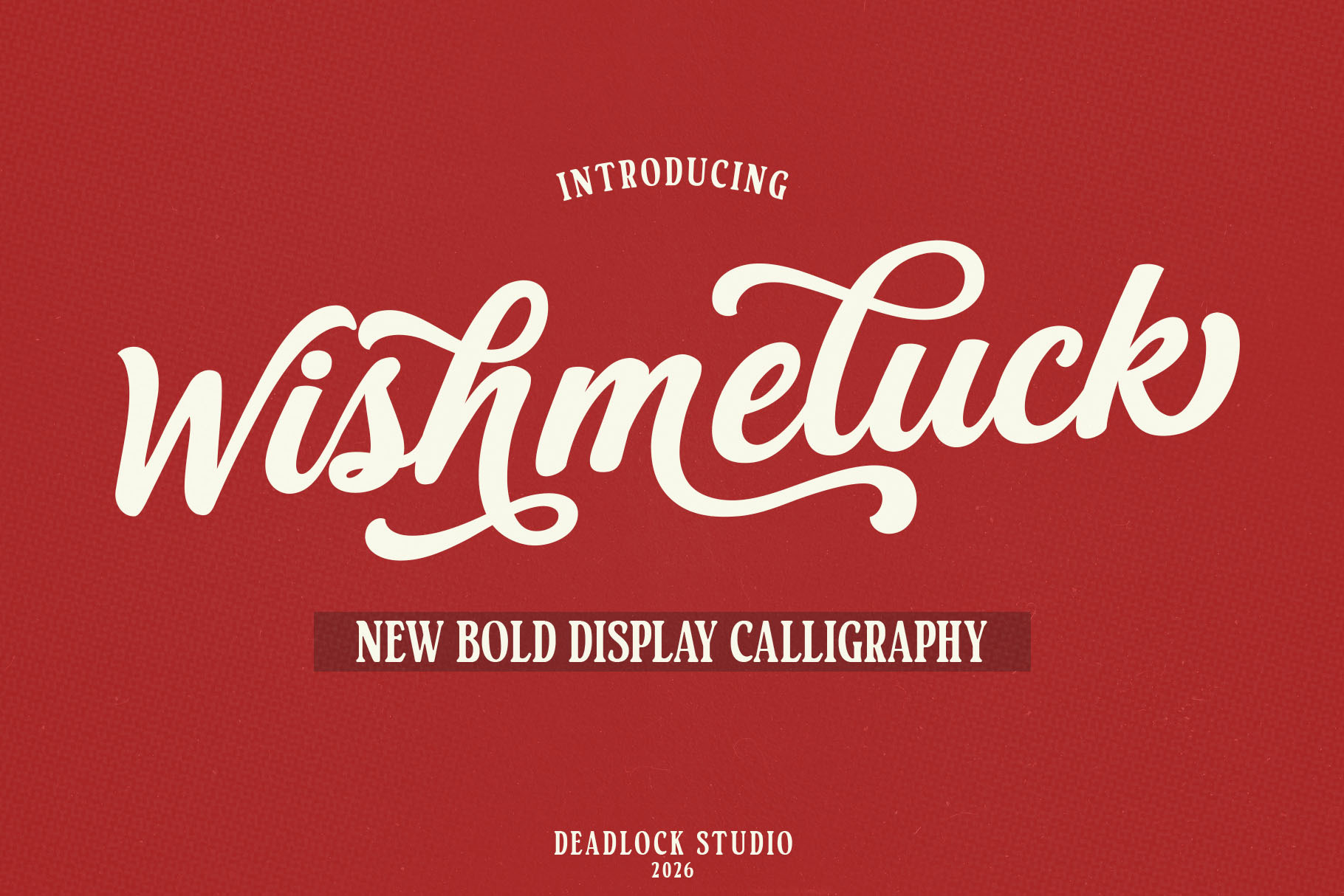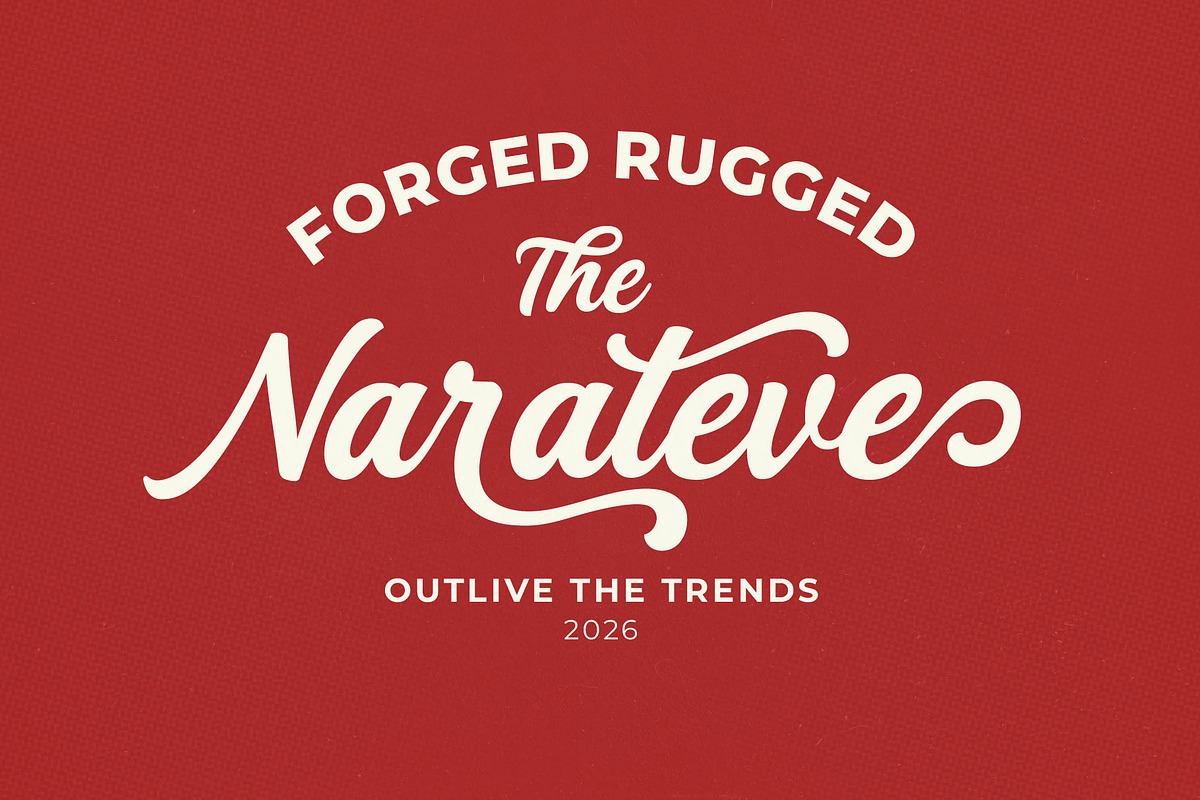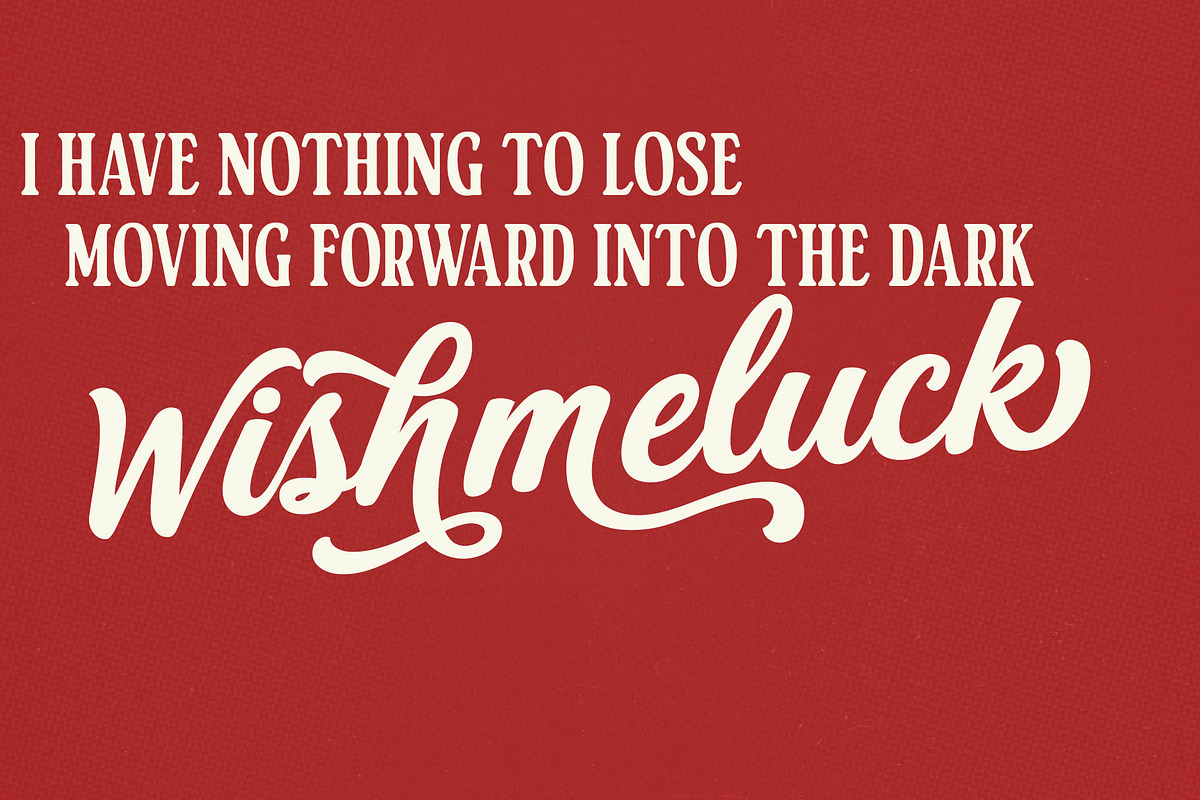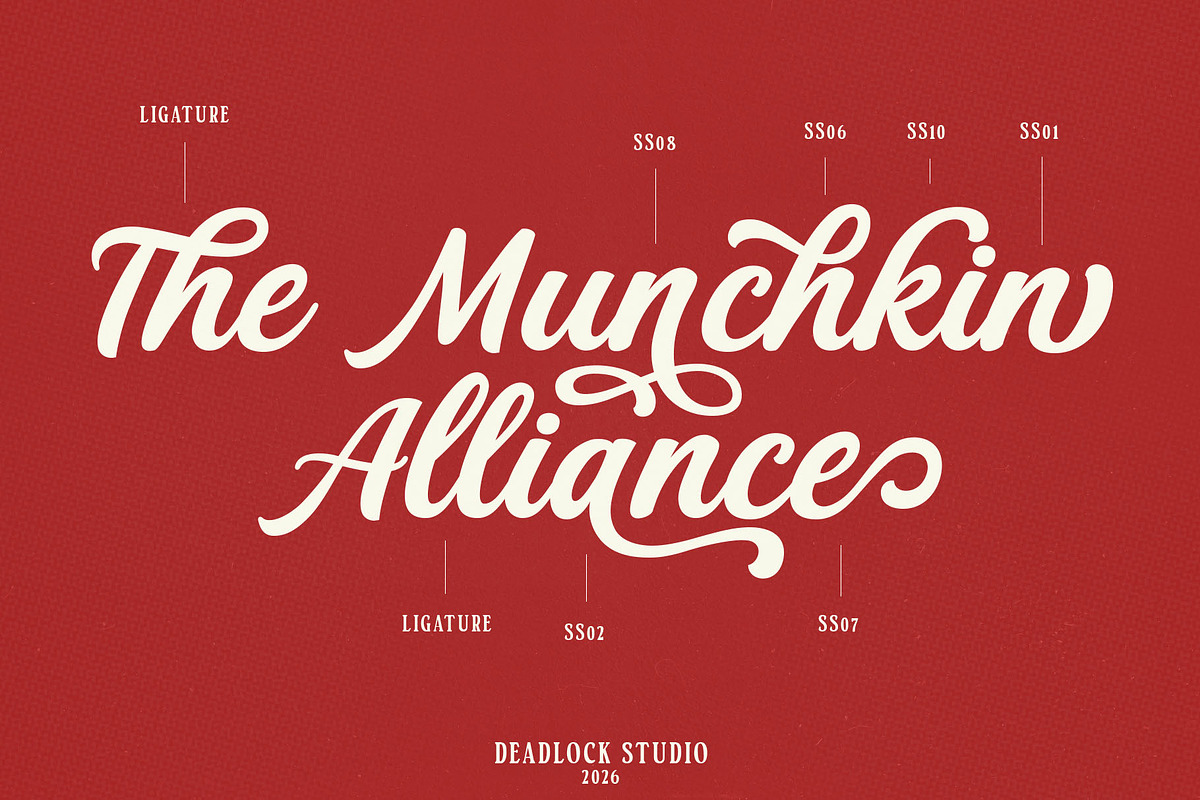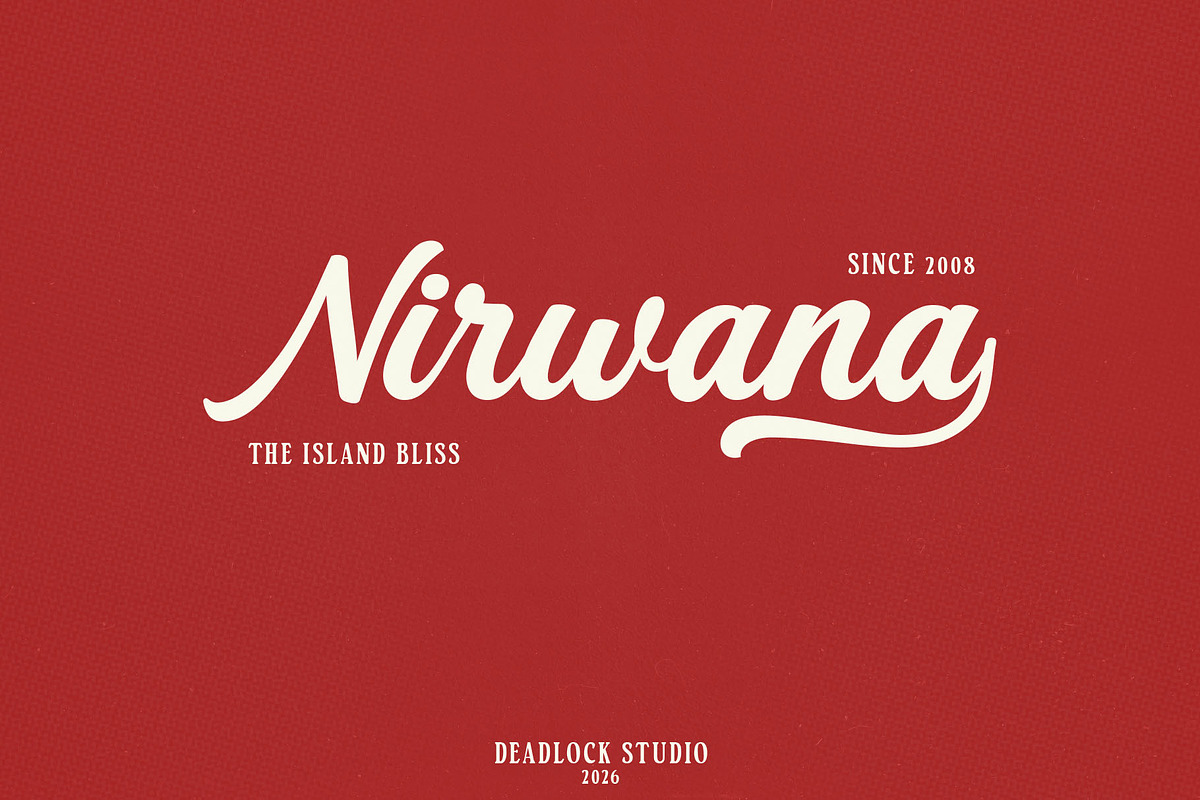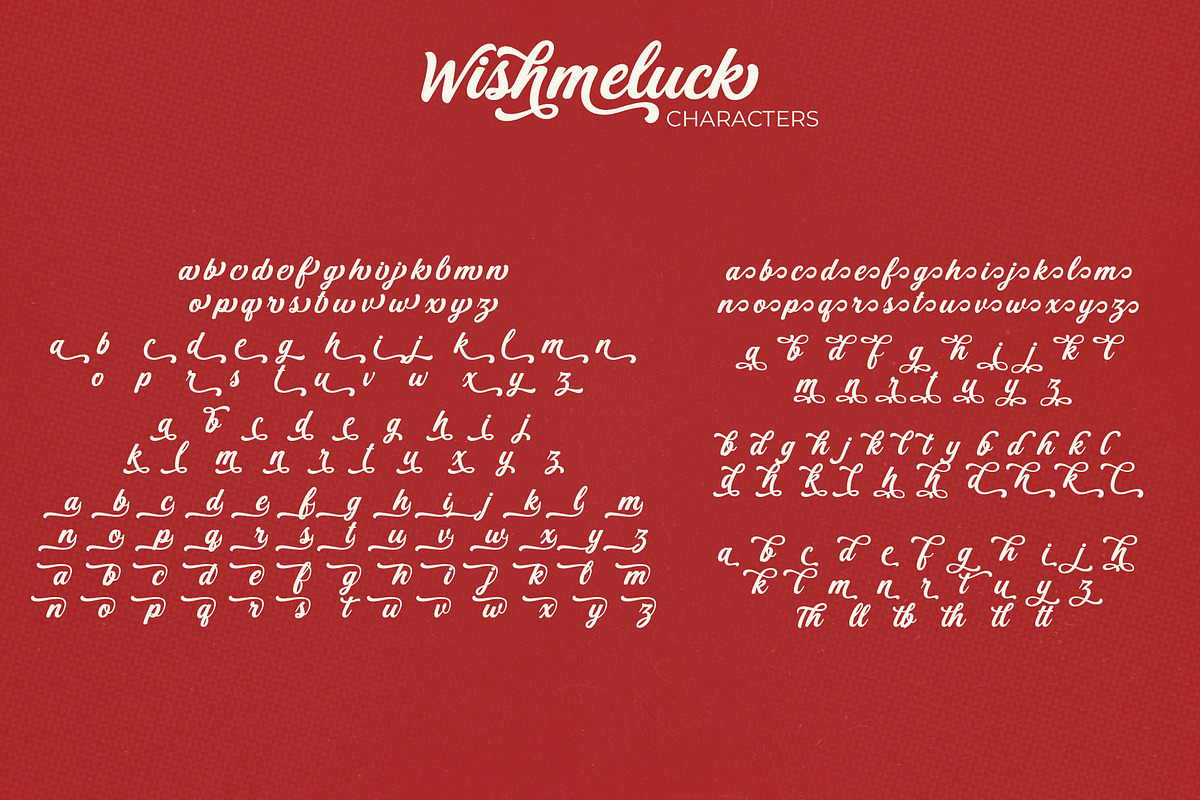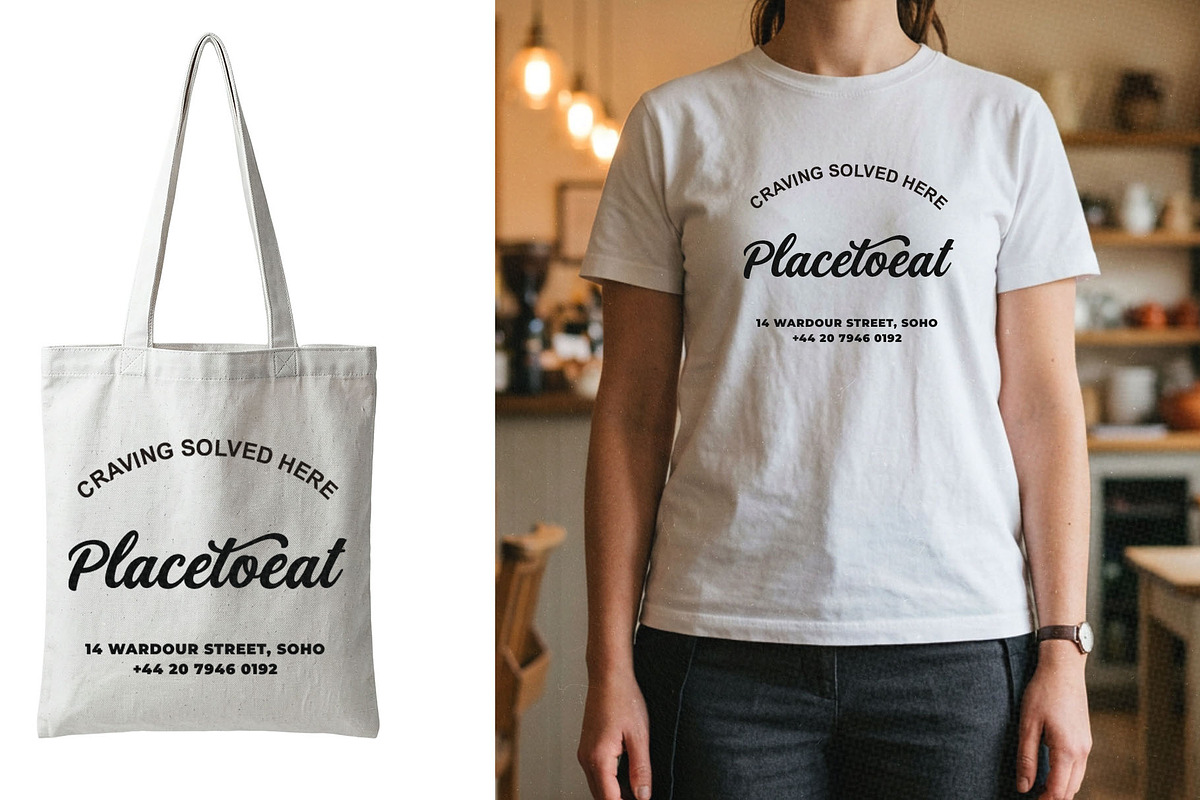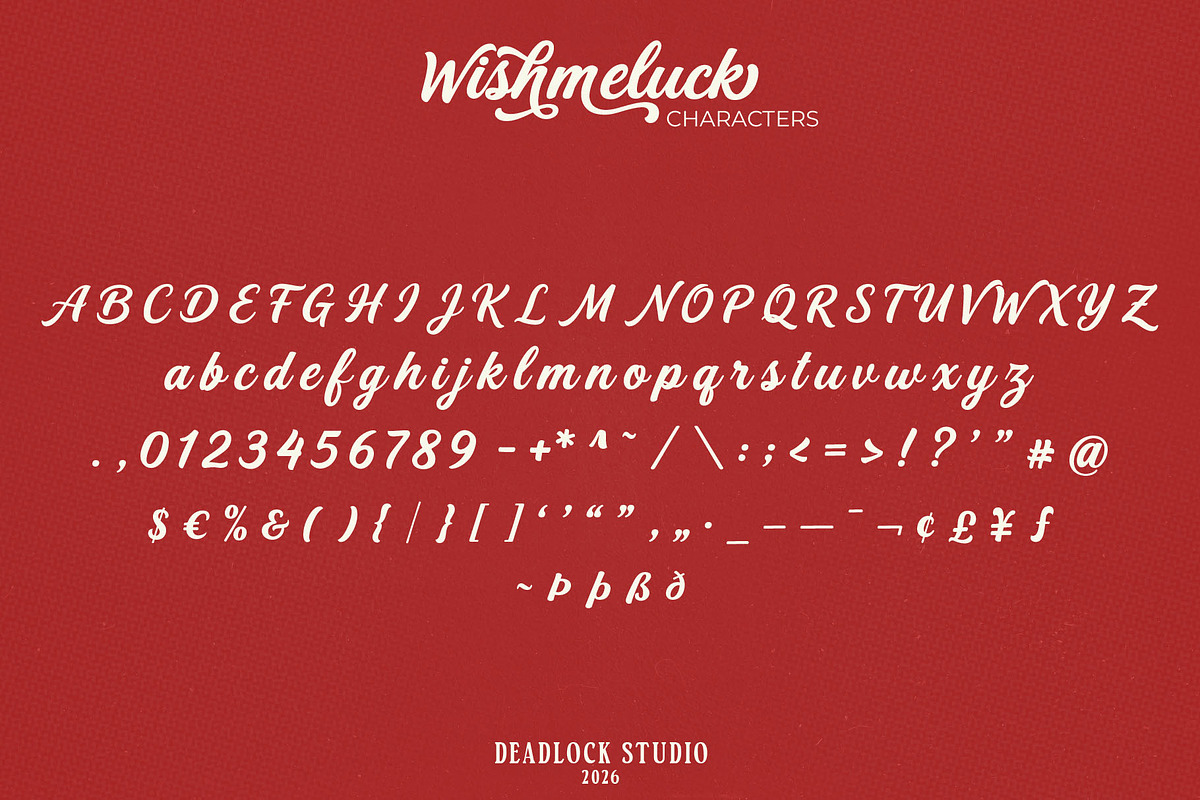
Wishmeluck – Bold Calligraphy Font
Wishmeluck is a bold modern calligraphy font that perfectly blends the elegance of contemporary brush strokes with a strong, striking, and deeply emotional visual character. Crafted specifically for designers who demand ultimate flexibility without sacrificing bold, modern aesthetics.
The crown jewel of this font is its extensive OpenType features. Loaded with 14 Stylistic Sets (ss01 to ss14) and dozens of automatic ligatures, File Formats .OTF, .TTF, .WOFF, WOFF2.
Wishmeluck grants you total creative freedom. You can effortlessly switch character shapes, extend the swashes, and create custom word combinations that look genuinely handcrafted by a professional letterer.
With its prominent yet dynamic bold weight, this font is highly recommended for versatile design projects.